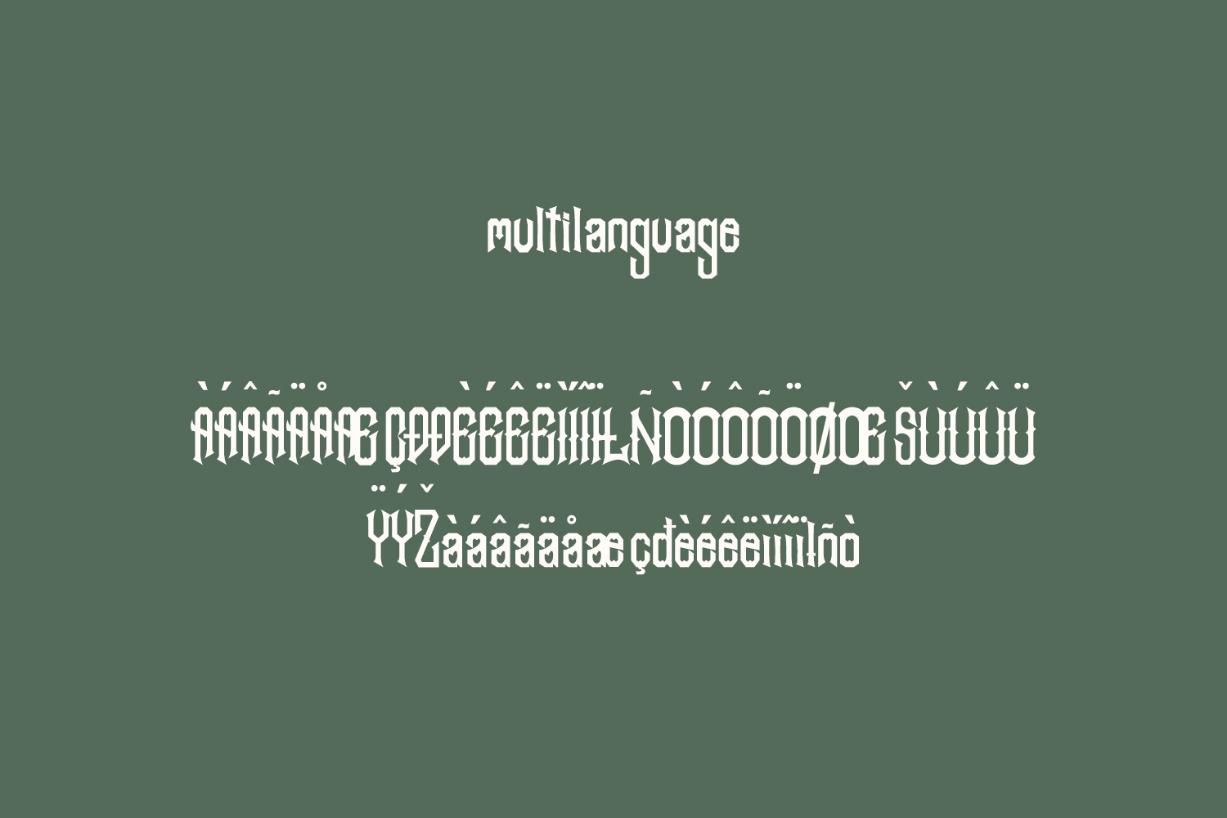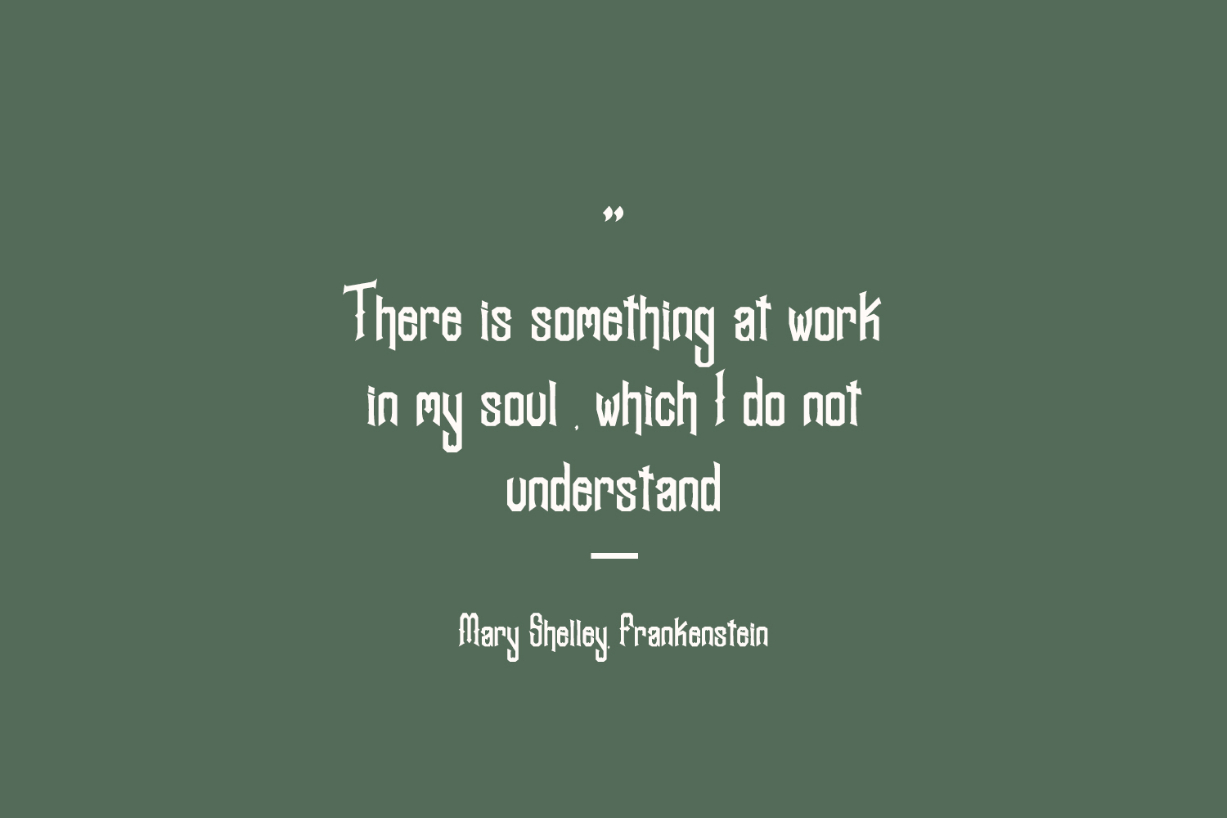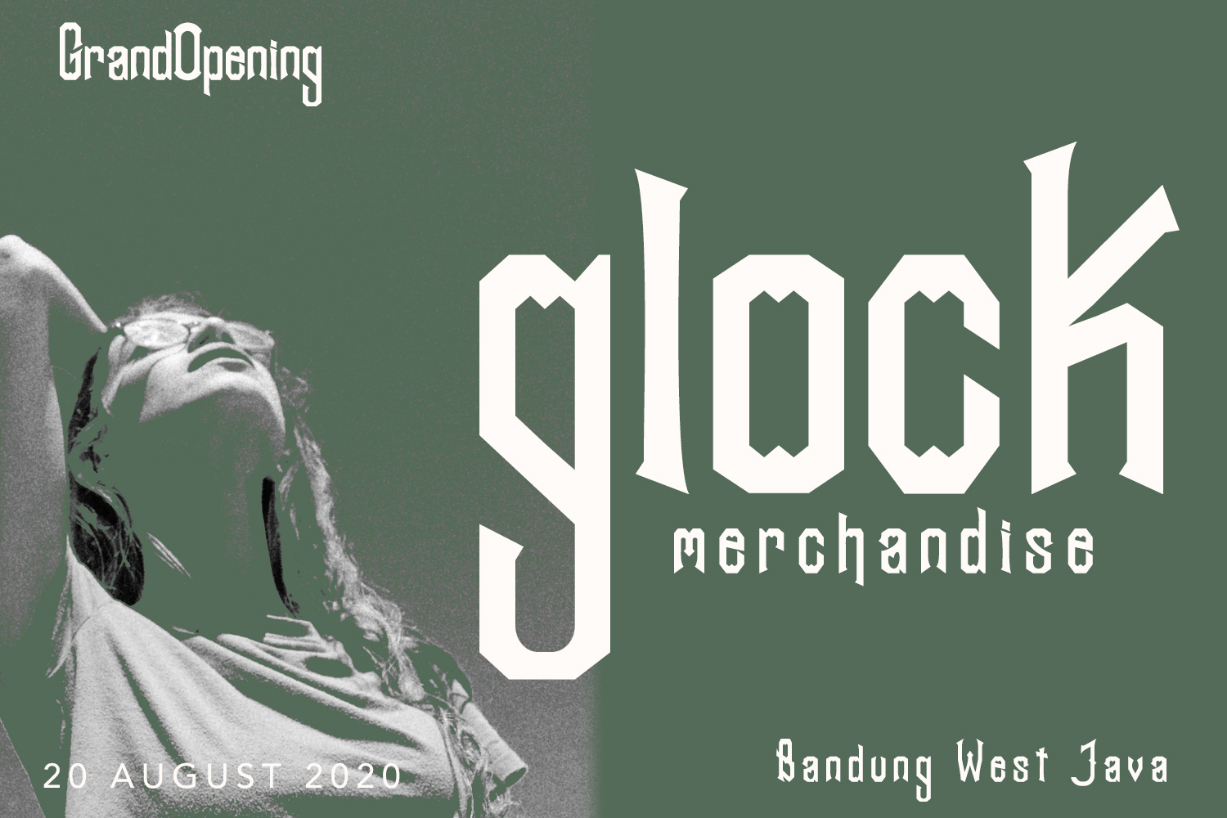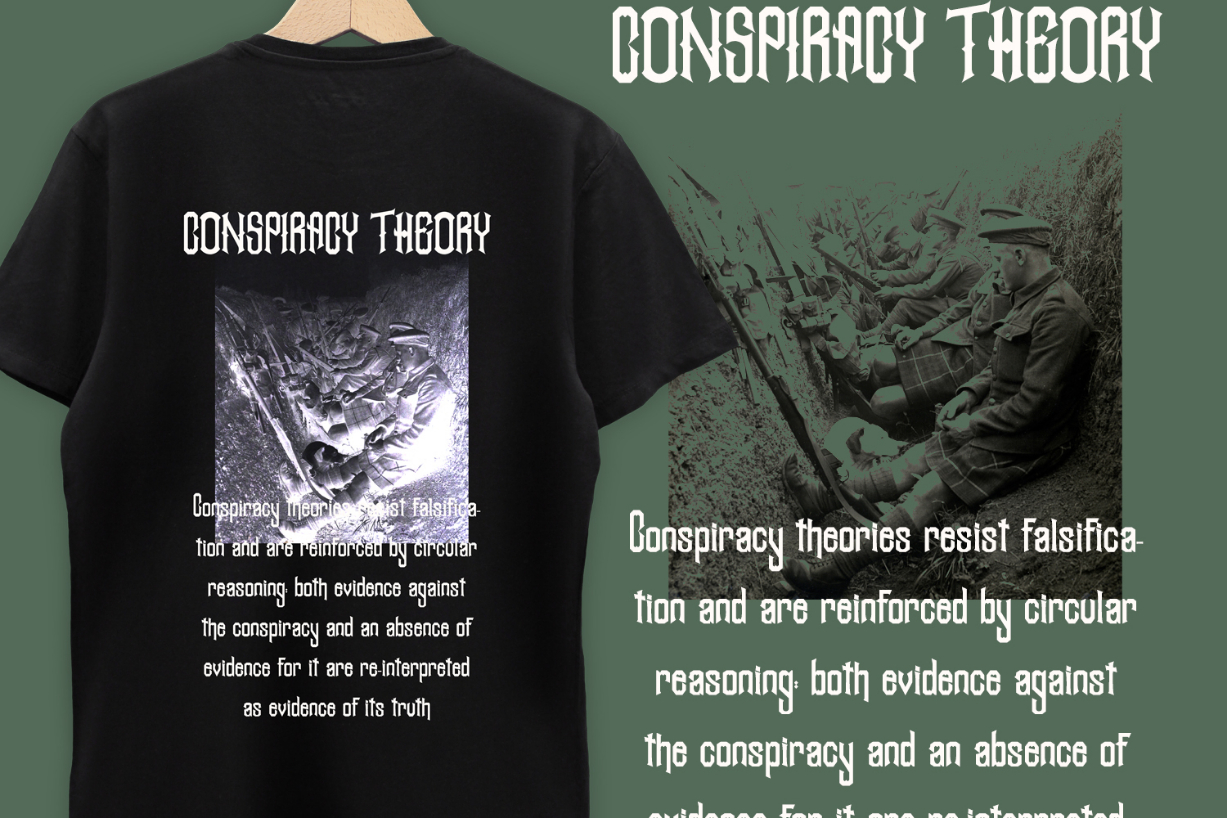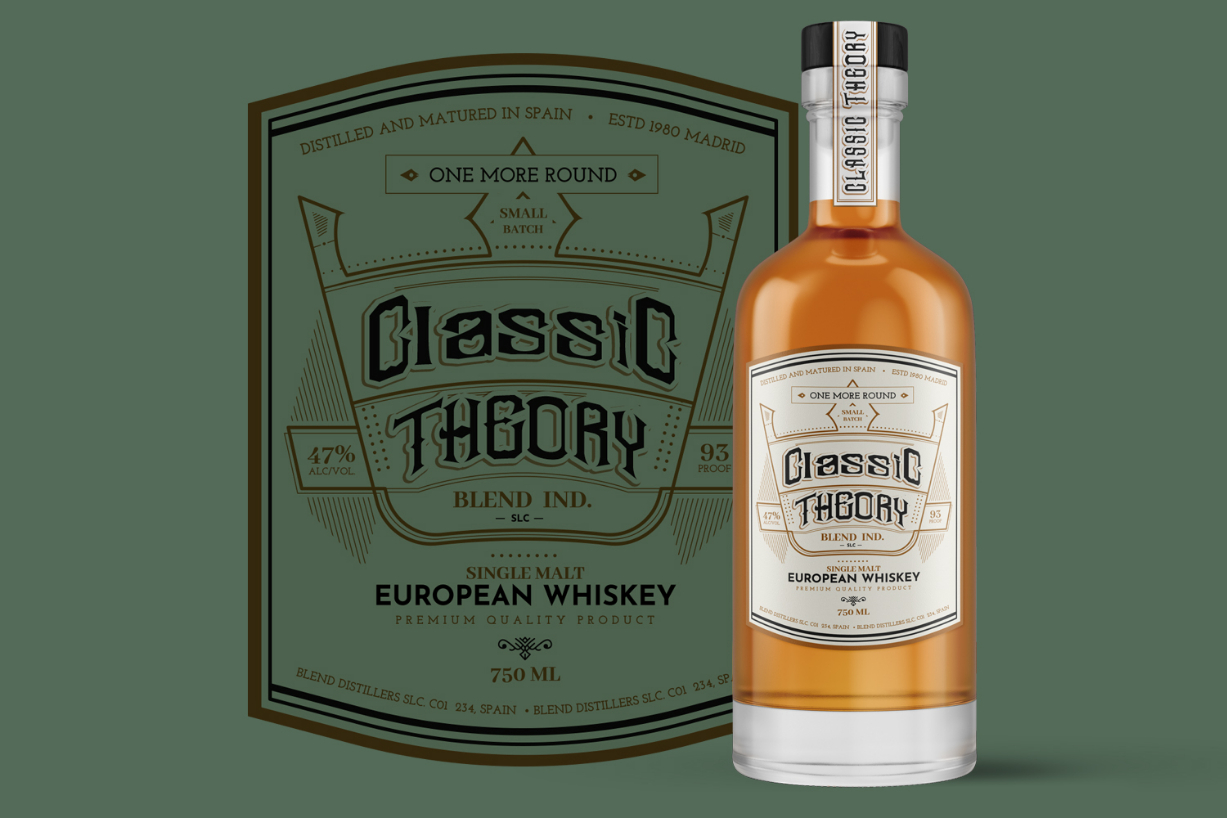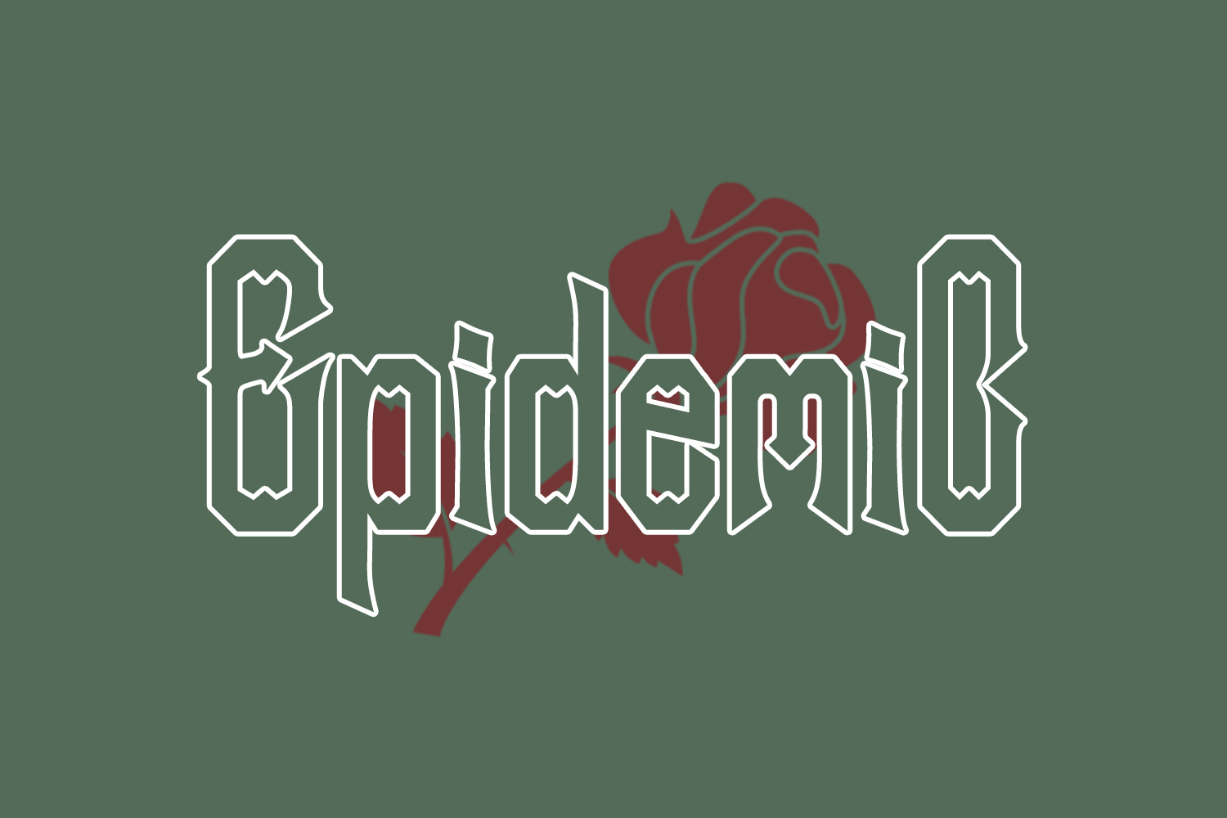
About Shearshank Font
Shearshank is a gothic blackletter font. It will add a special touch to your designs and itβs perfect for creating quotes, logos, branding, posters and much more!